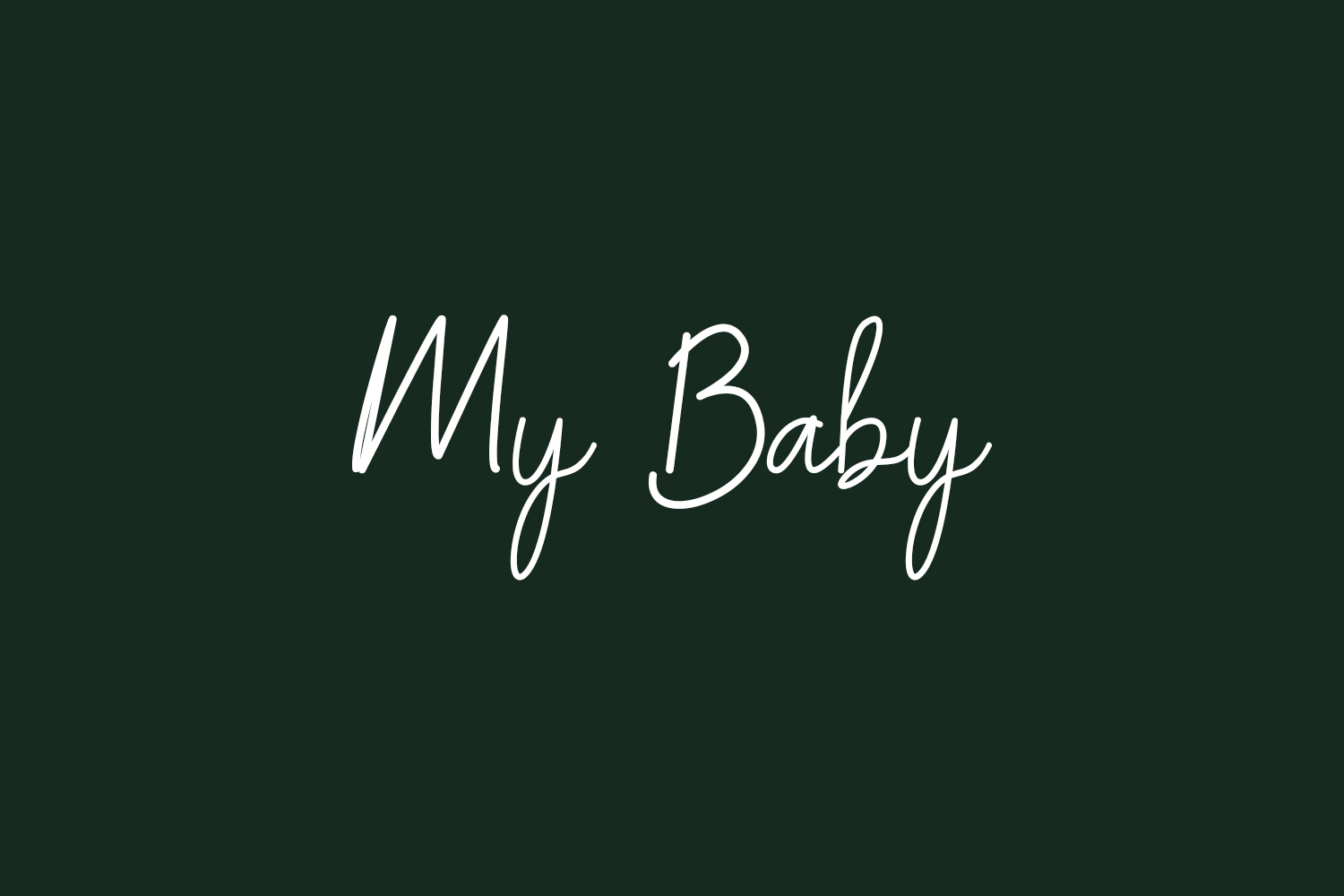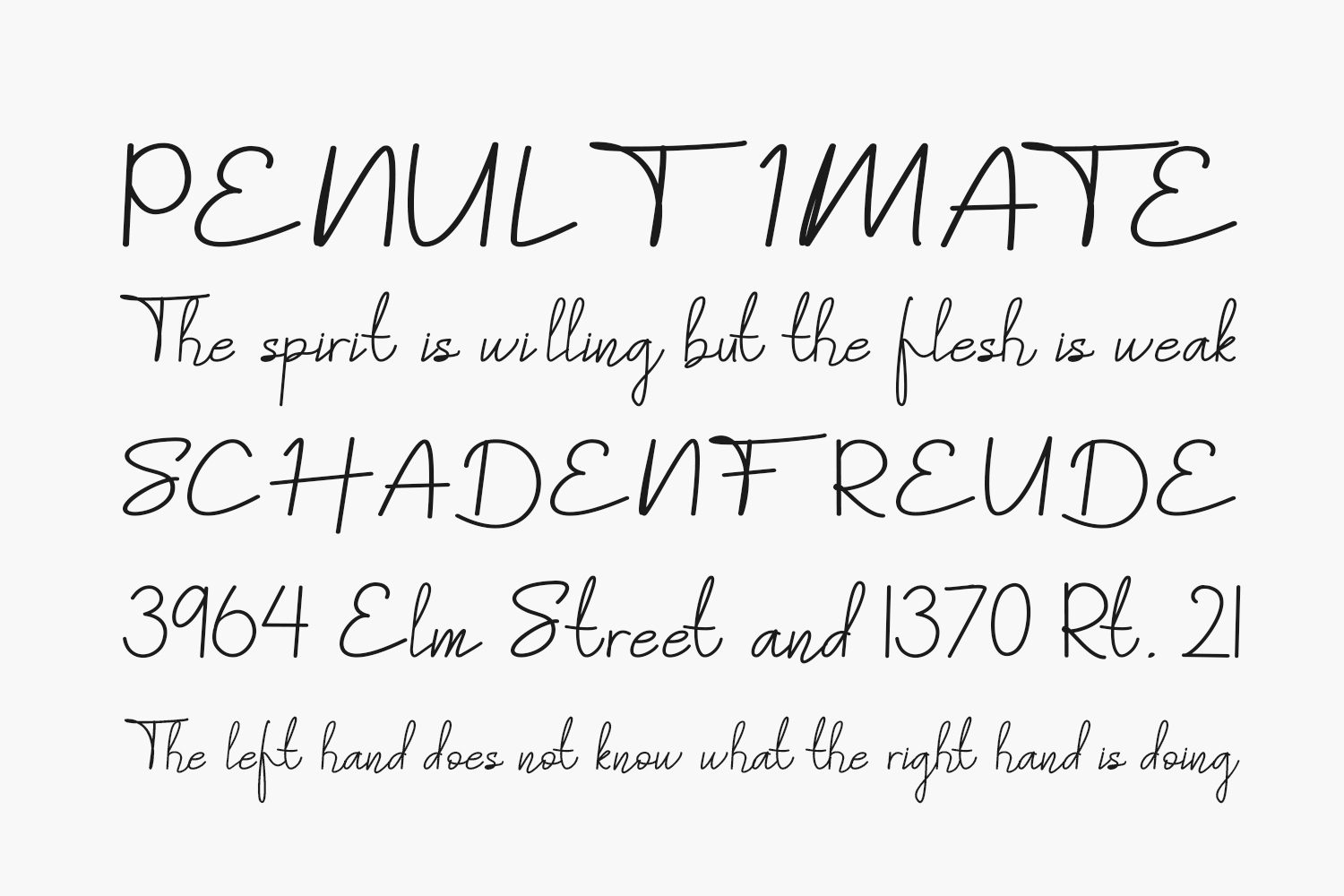
My Baby Free Font is a sweet, simple, and well balanced handwritten font. Its natural and unique style makes it incredibly fitting to a large pool of designs. The only limit is your imagination. My Baby Free Font was designed by Goodrichees and is free for personal use only. Please purchase the full version for commercial use.